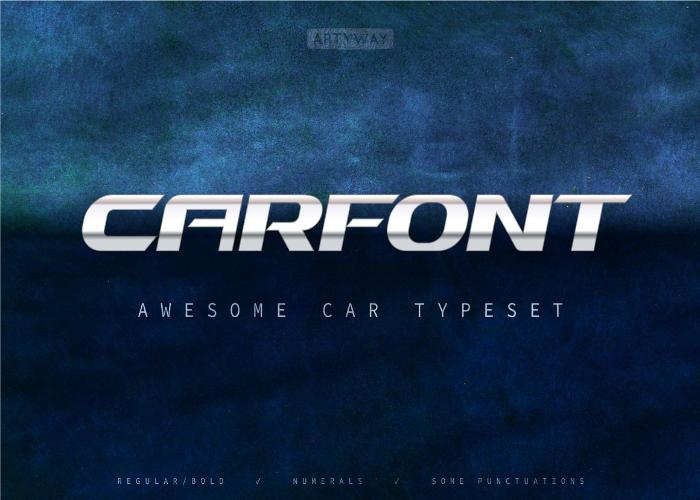
Bring the spirit of legendary automotive marques (think Ferrari Enzo and Bugatti Chiron) to your designs with Car Font — a bold, dynamic, and confident typeface crafted for automotive and high-speed branding.
Car Font is stylish, versatile, and highly legible, making it perfect for logos, headlines, vehicle graphics, posters, and any project that needs a strong automotive tone. This freebie includes an Extended Commercial License so you can use it across unlimited projects.